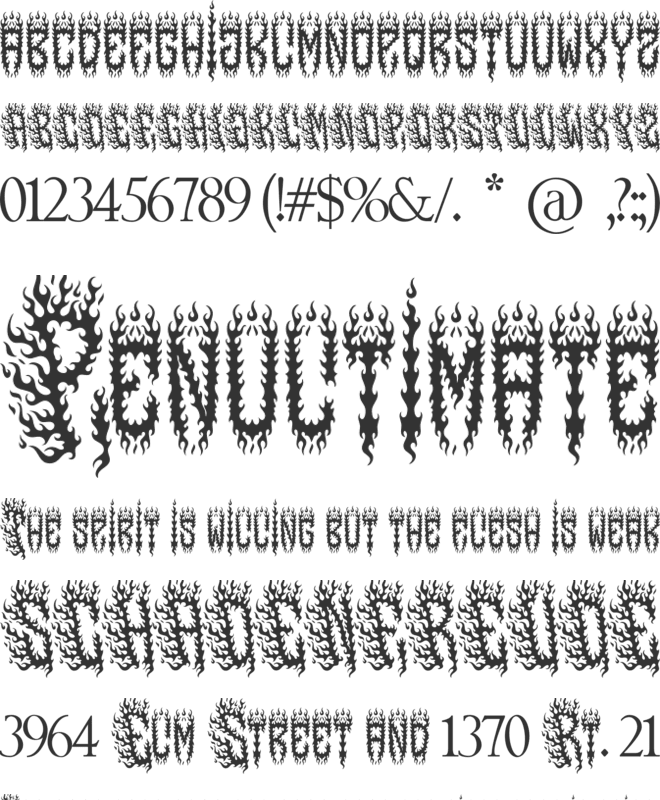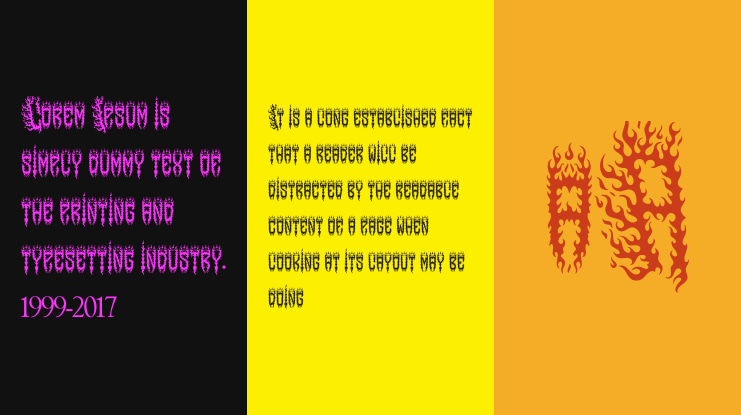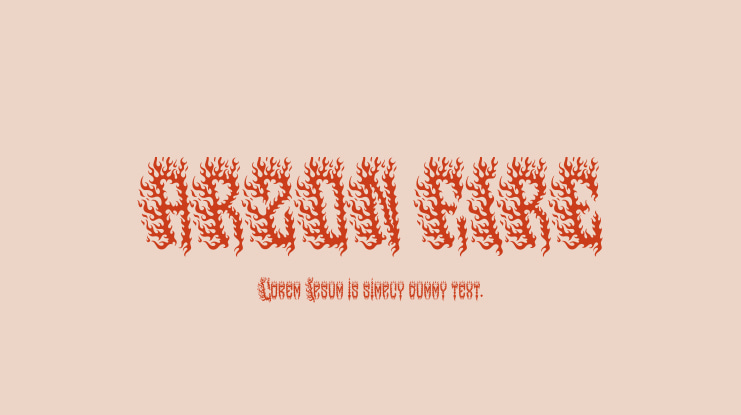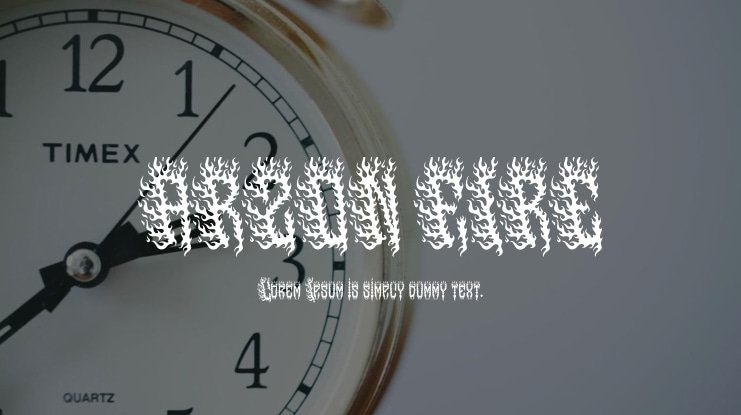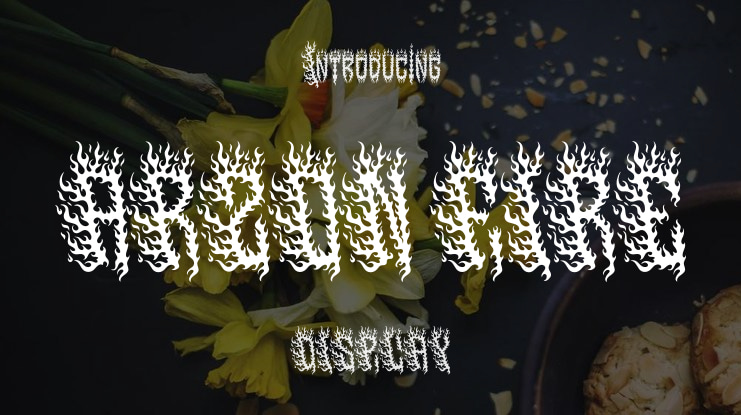
ARZON FIRE METAL FONT – PERSONAL USE
ARZON FIRE unleashes a torrent of scorching letters that engulf the viewer in a pyre of visual brilliance. With its fiery edges, smoldering curves, and burning typography, this font embodies the flames fueling your music’s passion.
Harness the heat of ARZON FIRE for your album covers, concert promotions, merchandise, and more. Let the searing typography leave an indelible mark on your fans, branding your band with the unstoppable force of a raging wildfire.